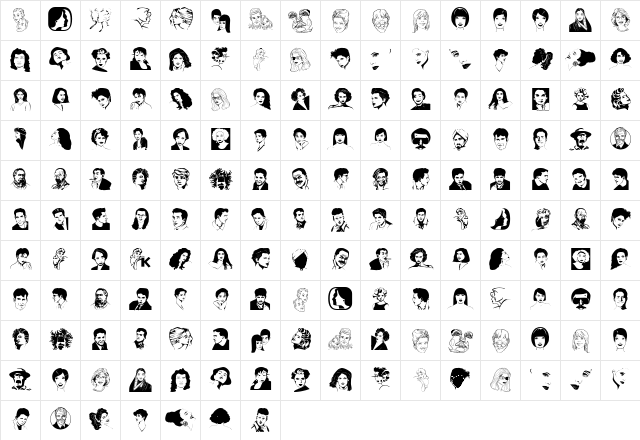
SheAndHe Regular
Design Context for SheAndHe Typeface
SheAndHe is a composed and adaptable typeface that performs quietly and consistently across a wide range of design contexts.